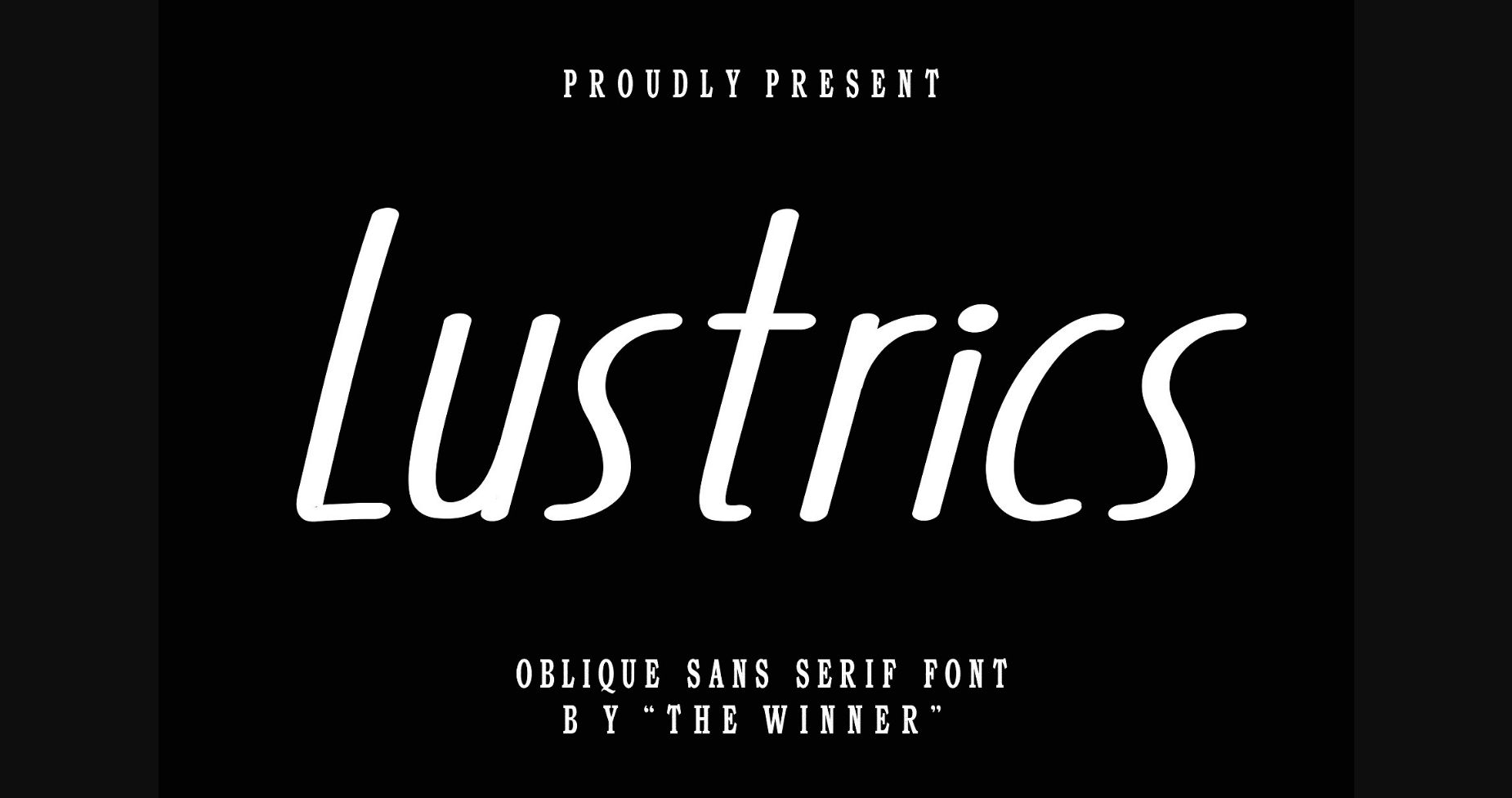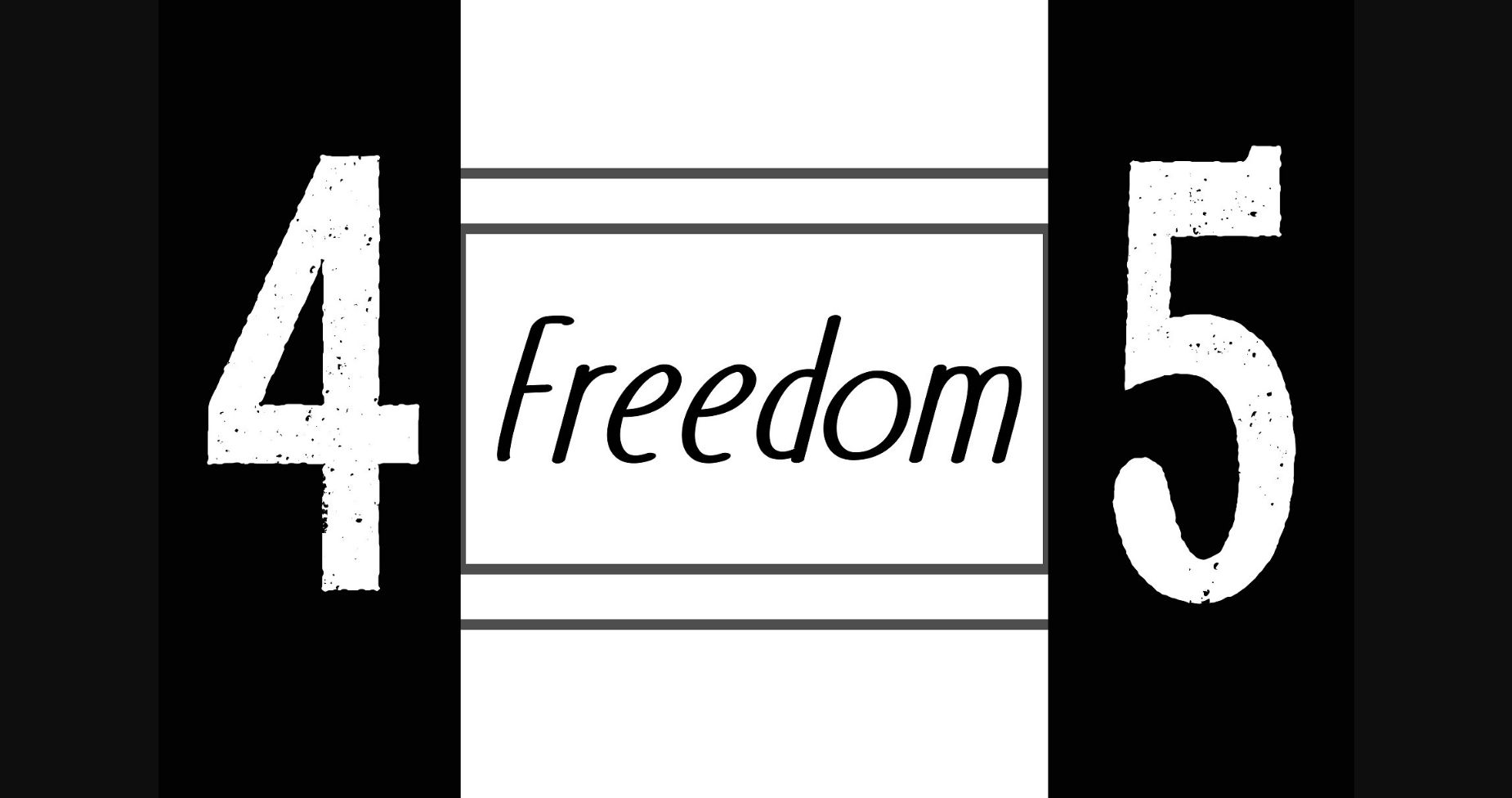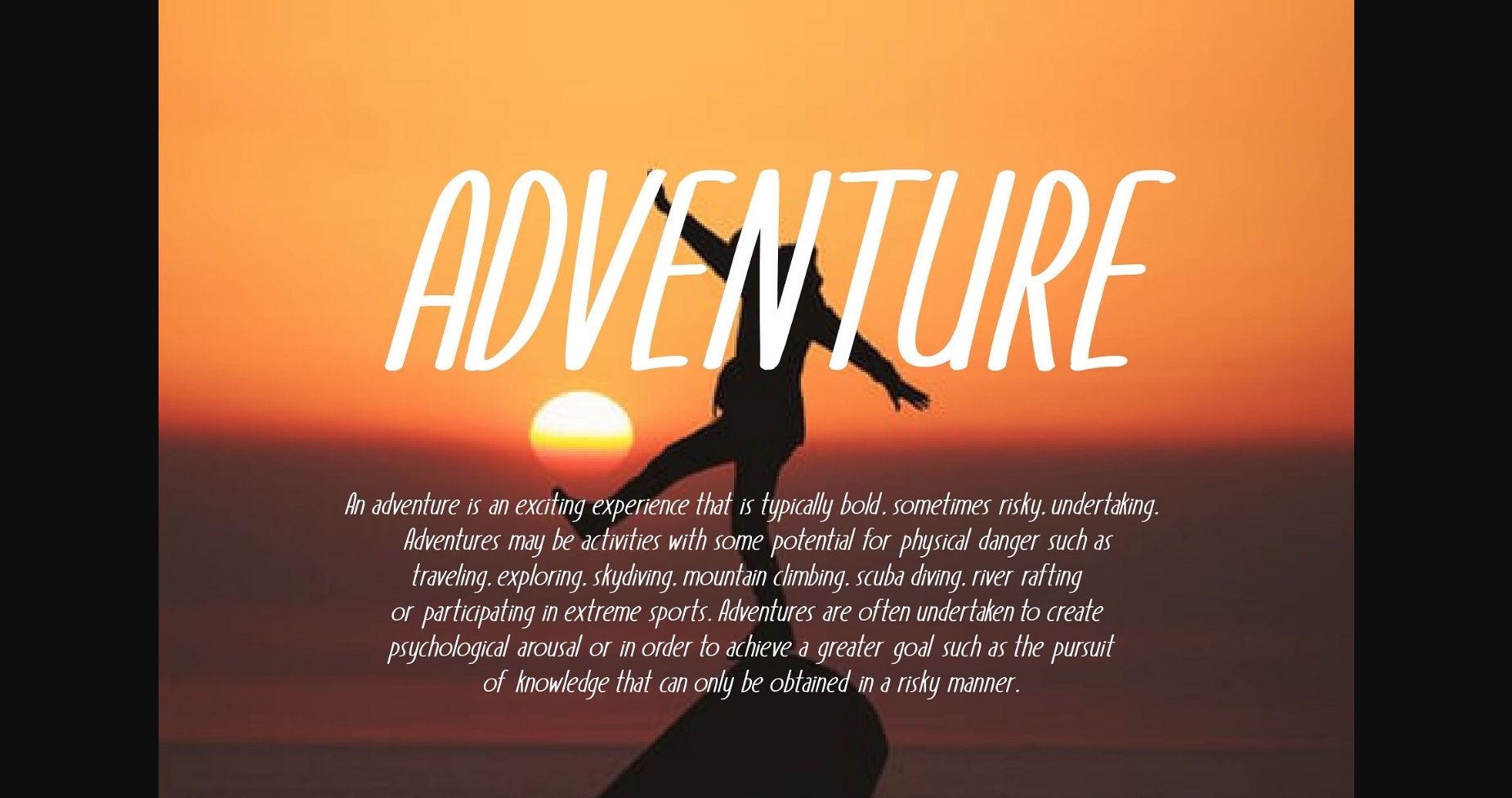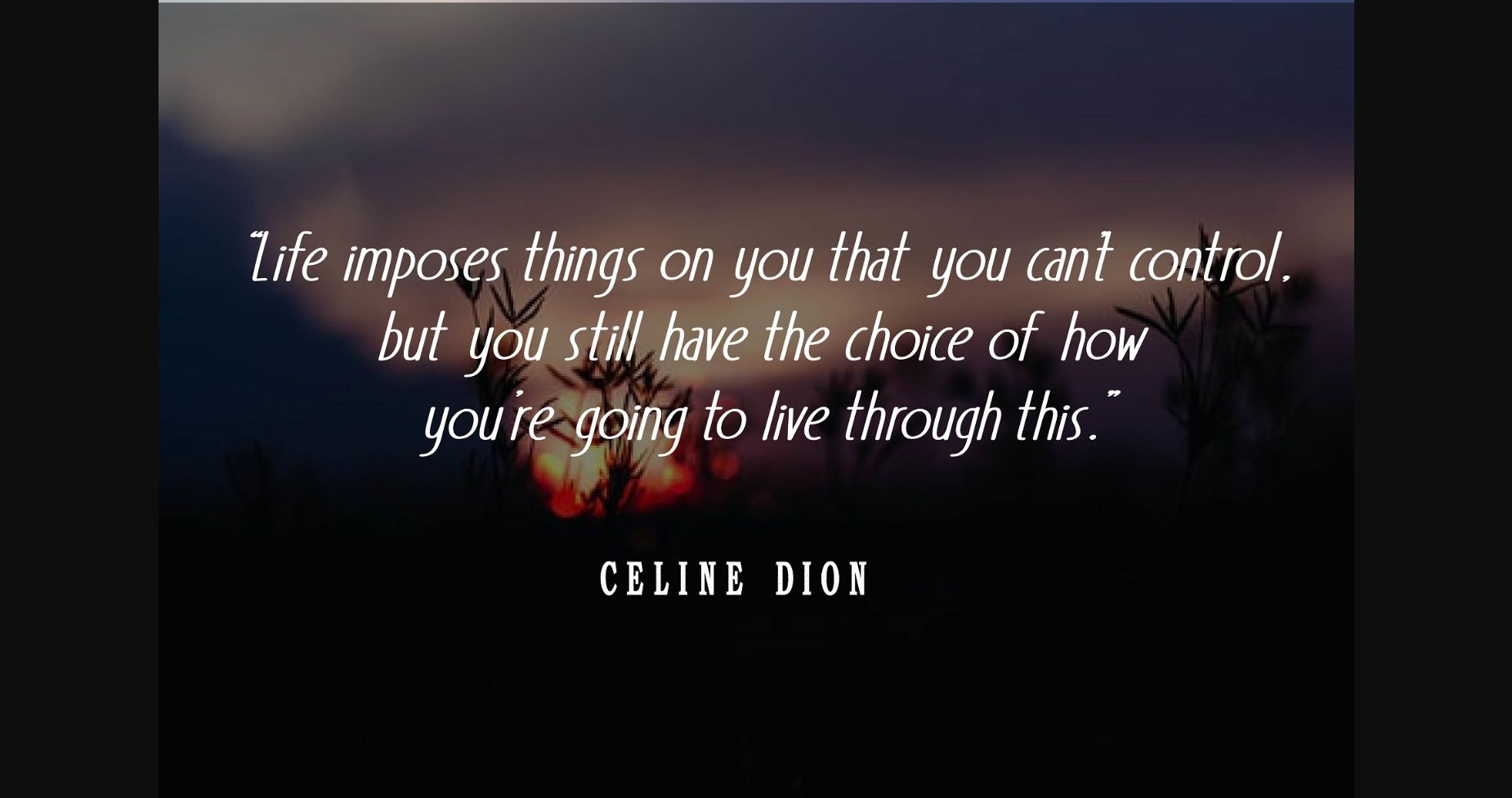
About Lustrics Font
Introducing Lustrics, a sans serif oblique font. Itβs perfect for branding, product packaging, invitations, quotes, t-shirts, labels, posters, or any logo you want to develop. Make all your design projects more attractive and take your designs to the next level with Lustrics.